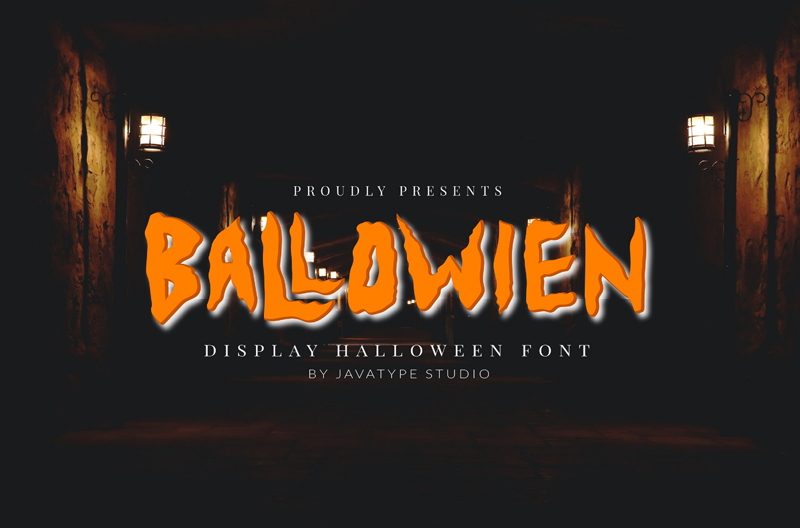
Introducing Ballowien is Display Halloween Font. This font is beautifully crafted to meet your Halloween needs. has a scary character but also looks elegant and funny. Ballowien font perfect for a t-shirt, Halloween day, card invitation, Halloween party, quotes, etc. This font comes in uppercase, lowercase, punctuation, symbols, numerals, and unique ligatures. NOTE: This demo font is for PERSONAL USE ONLY! But any donation are very appreciated Paypal account for donation: tyoyuliyanto1@gmail.com link to purchase full version and commercial license https://www.creativefabrica.com/product/ballowien/ref/433909/ please visit and follow our my portfolio update: 1. dribbble https://dribbble.com/javatypestd 2.Behance https://www.behance.net/javatypestd 3.Pinterest https://id.pinterest.com/javatypestd/pins/ 4. Instagram https://www.instagram.com/java_type.std/ 5. Facebook https://web.facebook.com/javatype.std/ More... |